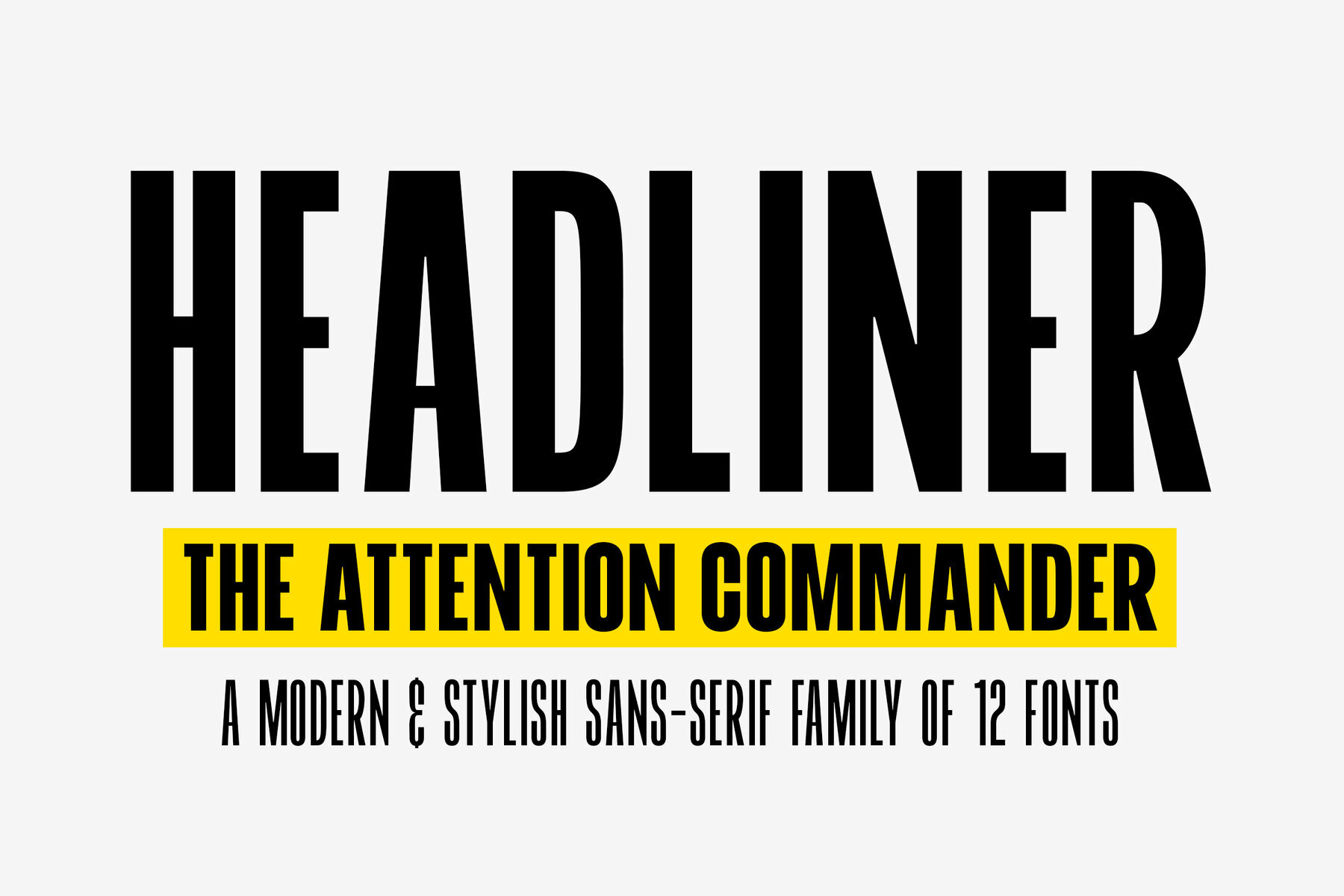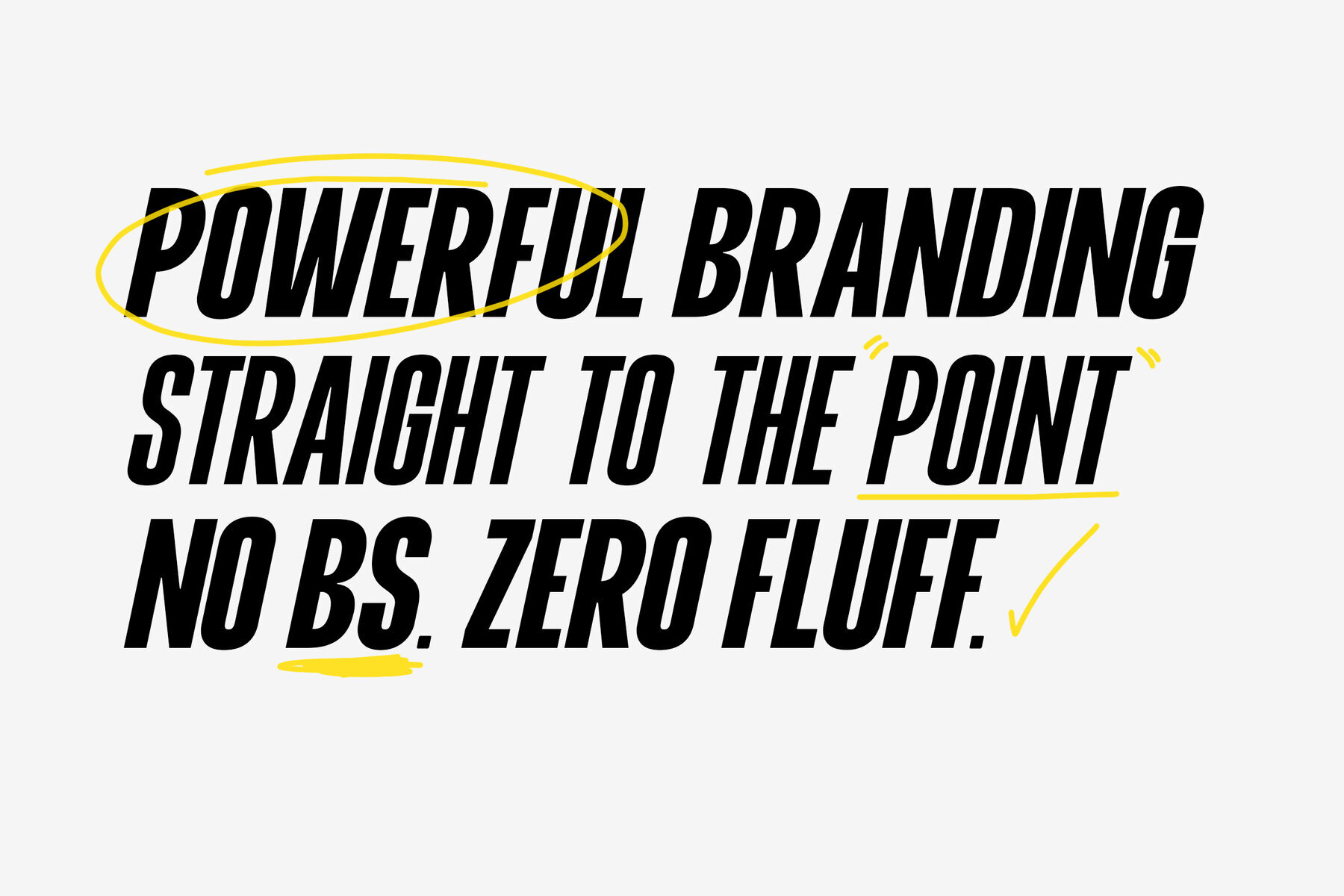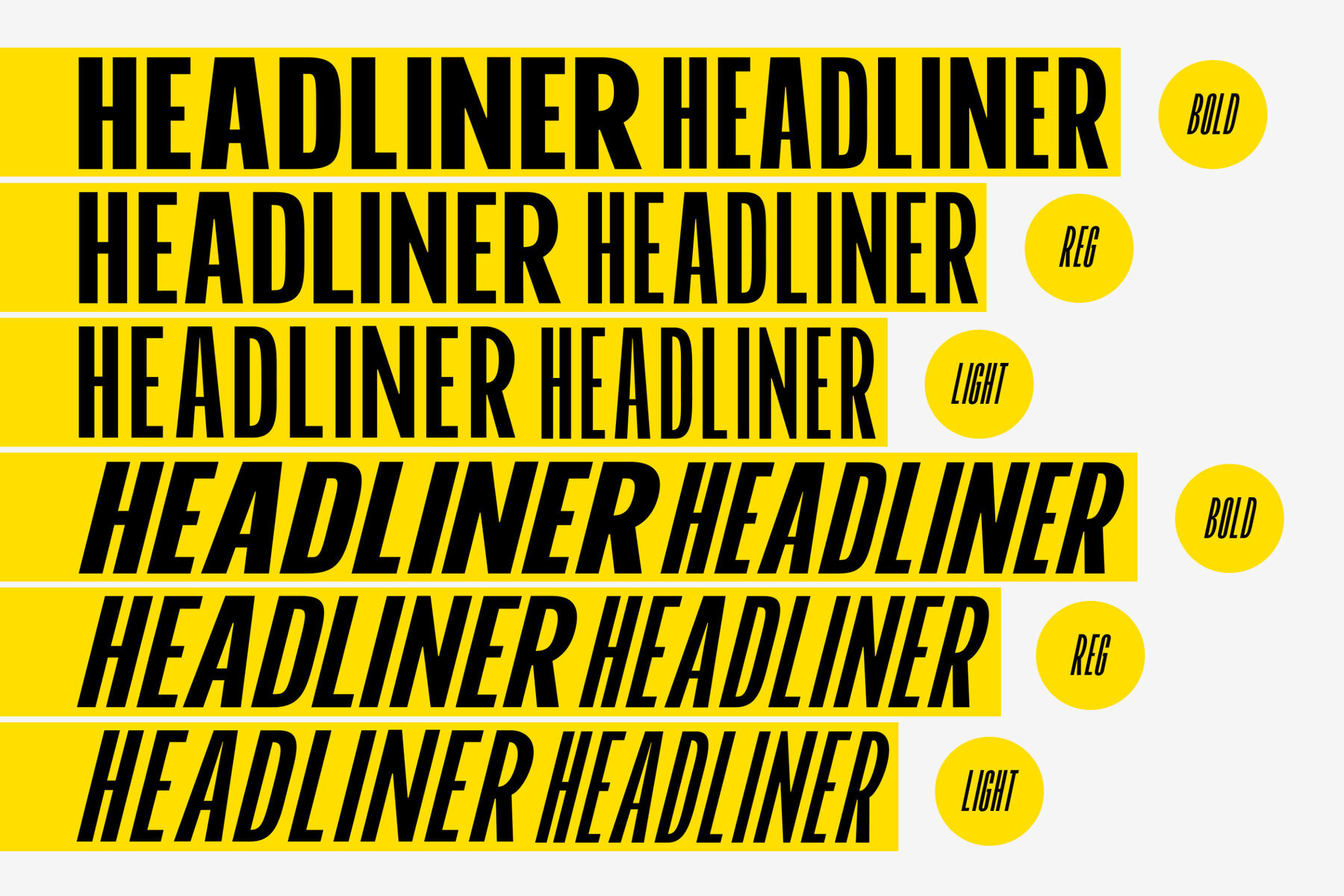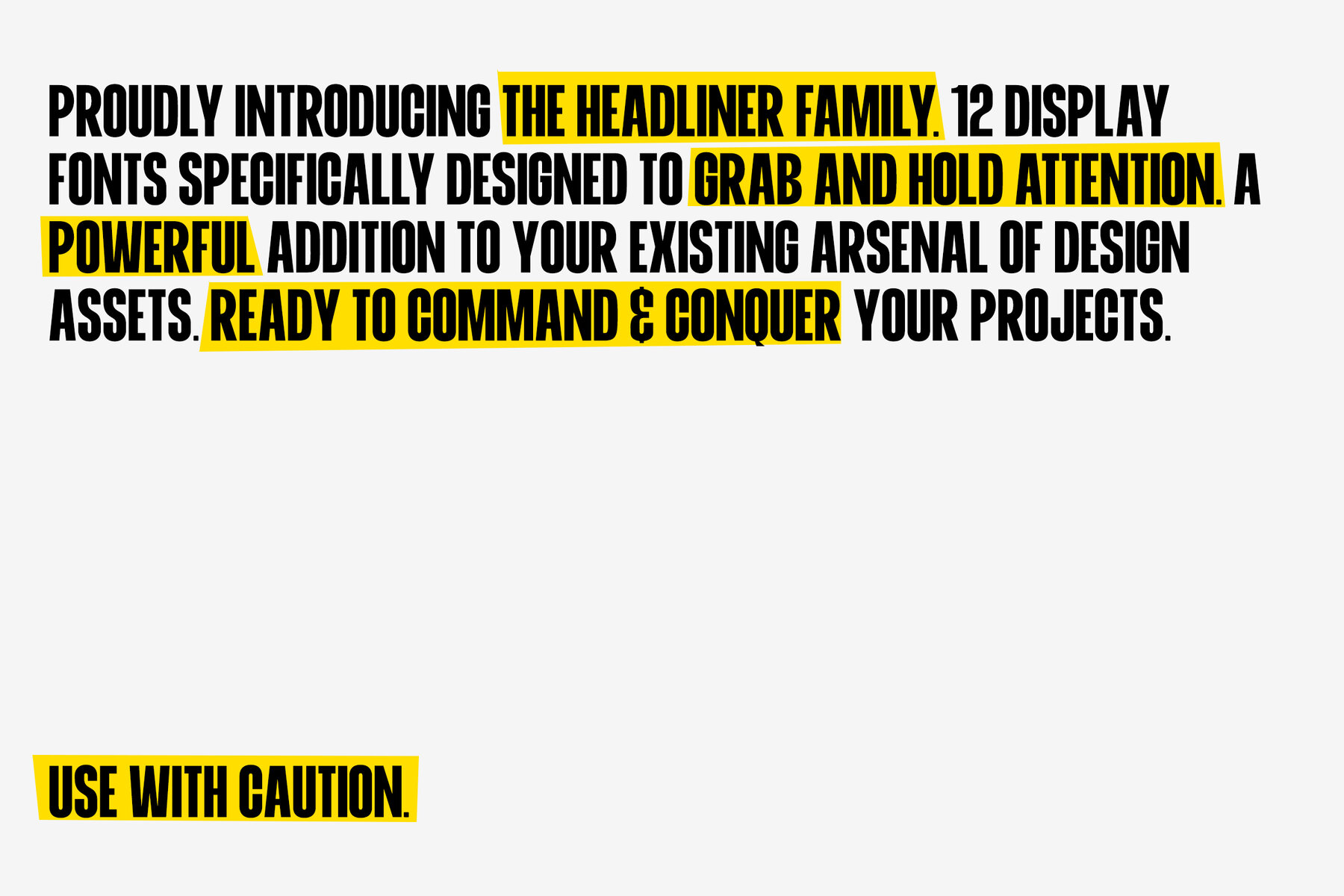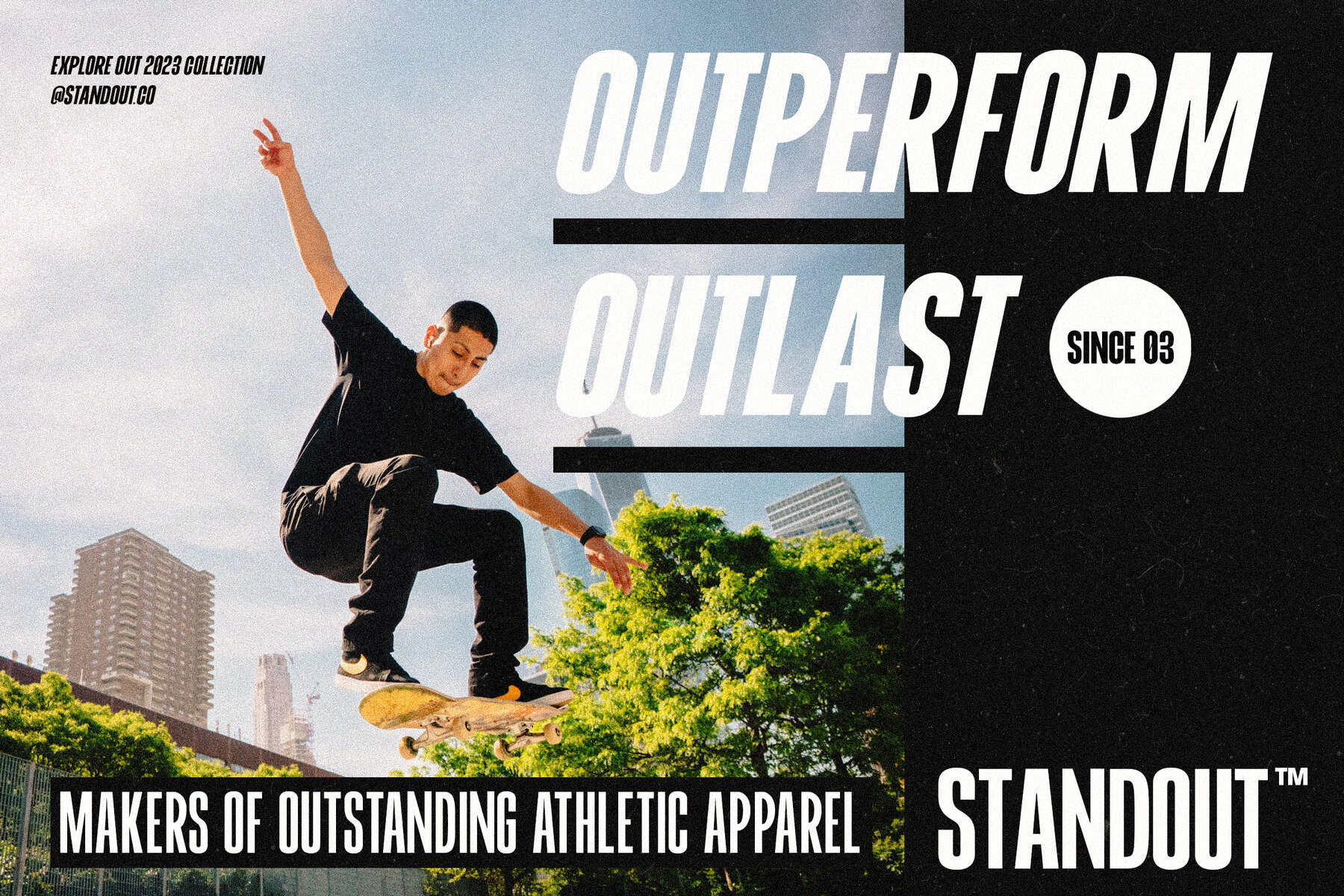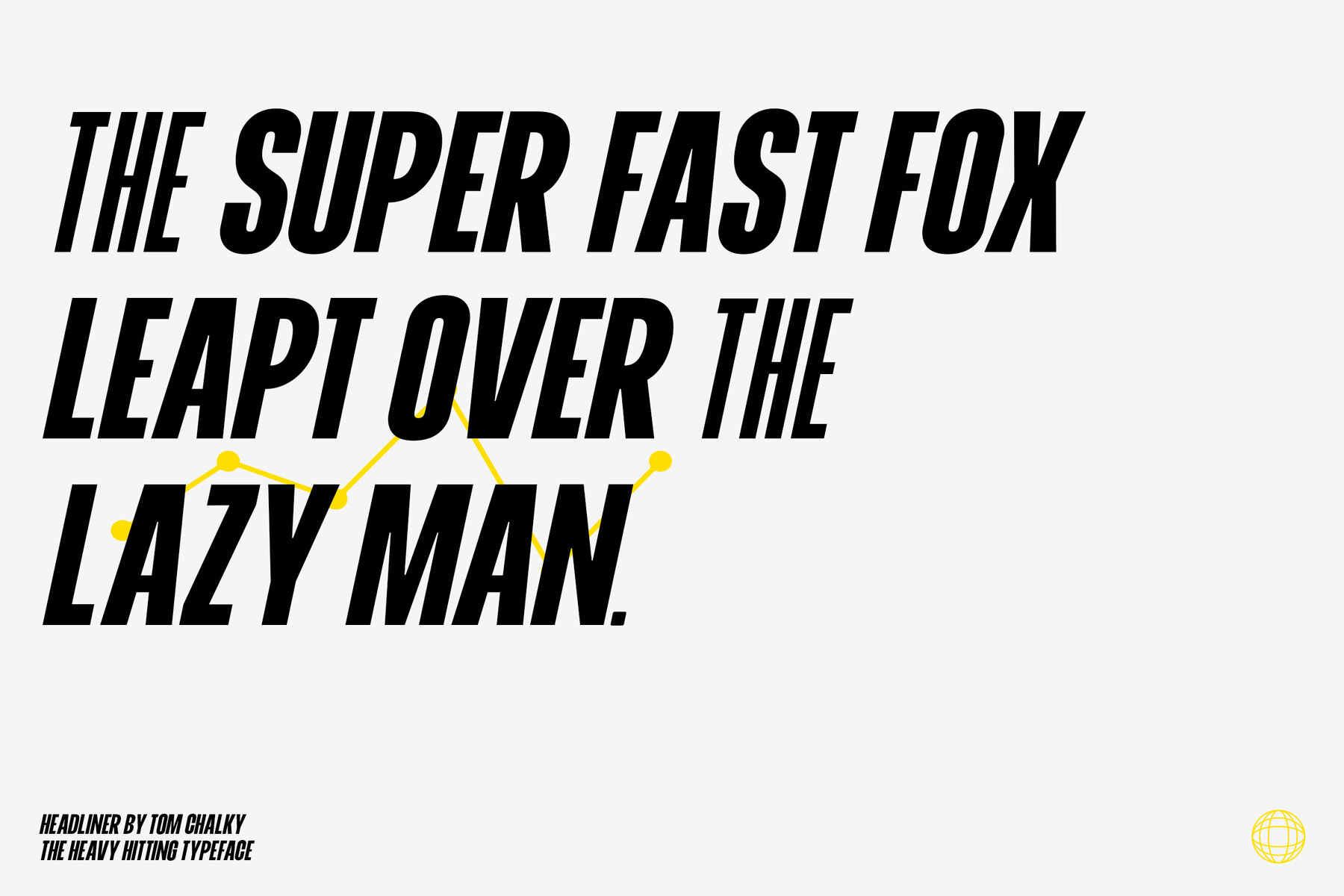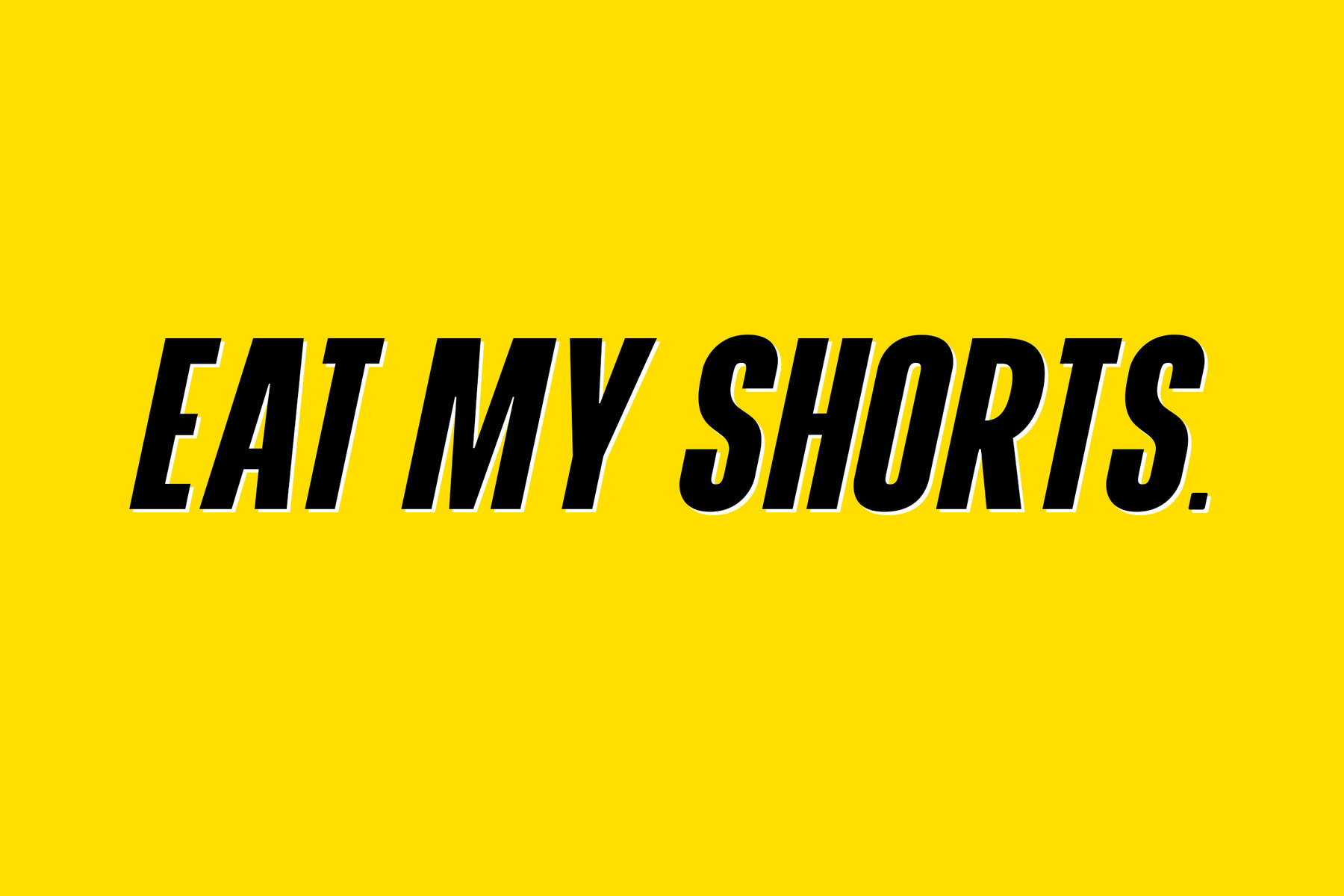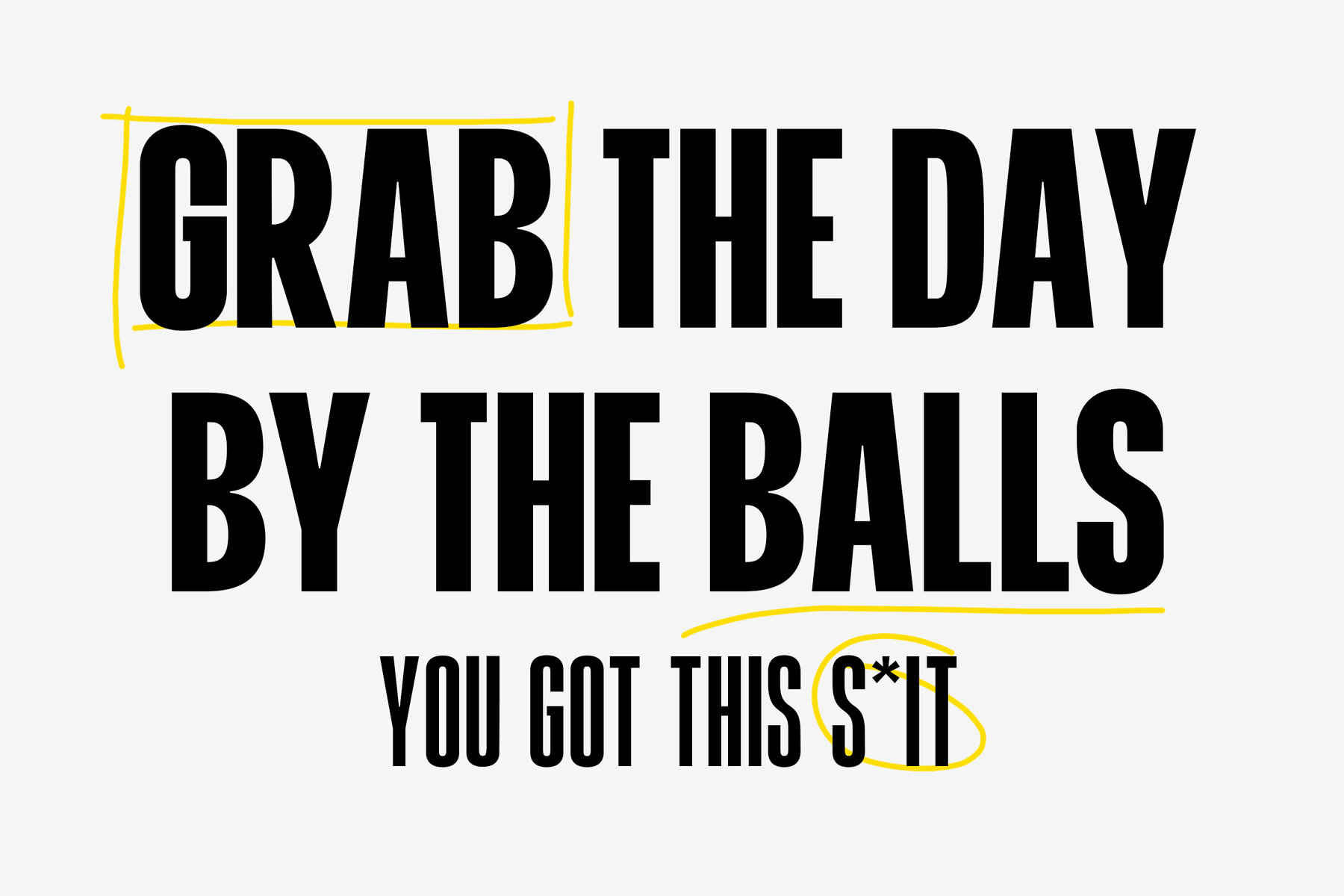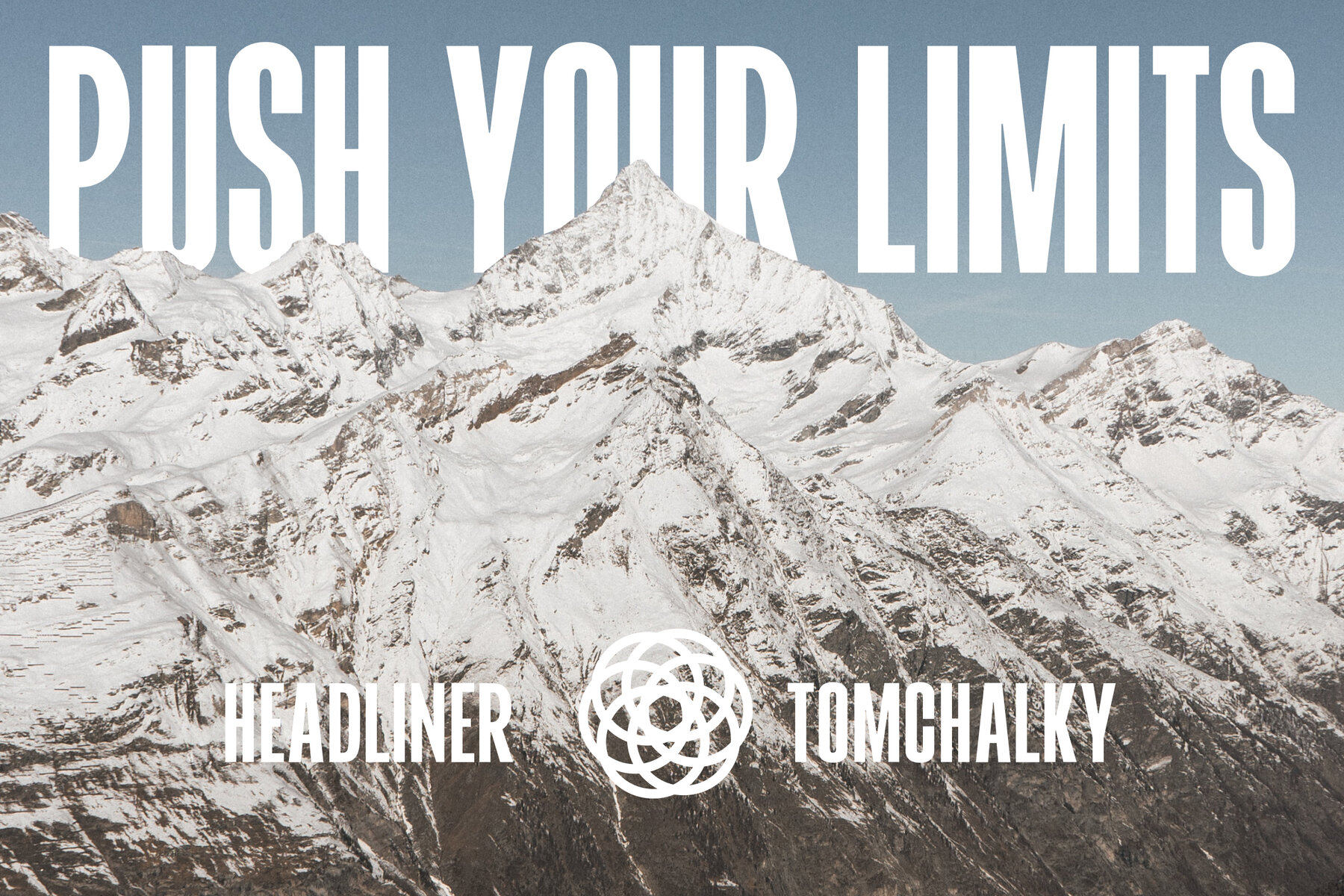
Proudly introducing the Headliner font family. 12 display fonts specially designed to grab and hold attention. This loud and proud family will make a powerful addition to your existing arsenal of design assets. Featuring Opentype kerning and multilingual support, this family is ready to command & conquer your projects right from the offset.